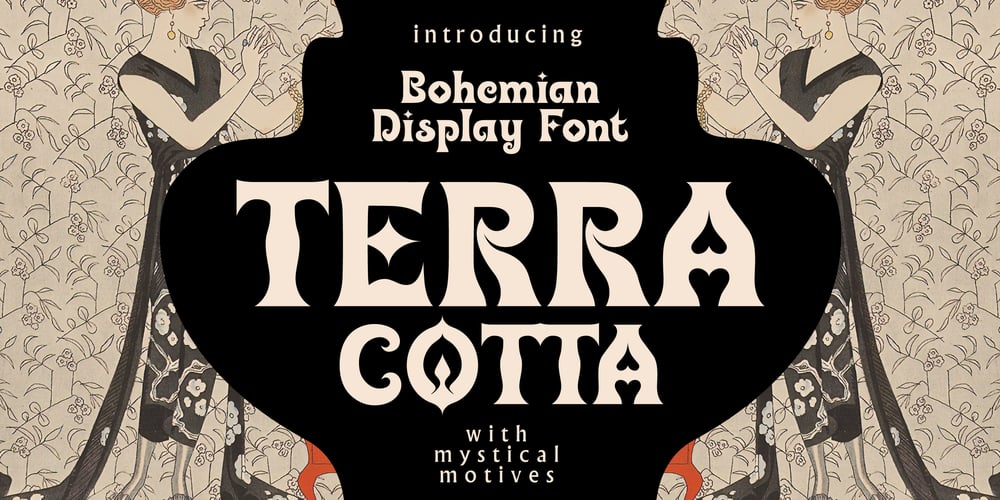
Terracotta Bohemian Font Family was designed by Viktoryia Strukouskaya, Viktor Strukouski and published by Struvictory.art. Terracotta Bohemian contains 1 styles and family package options. Terracotta is a modern display font with mystical and Art Nouveau motives. The font is created in Bohemian style and decorated with swirls and peaks. Terracotta is suitable for the design on the theme of tarot, mysticism, spirituality, fortune-telling, handcrafts (ceramics, creating candles, soap making ect).Terracotta has extensive language support, it includes English, French, German, Italian, Spanish, Portuguese, Danish, Norwegian, Swedish, Finnish, Estonian, Turkish.